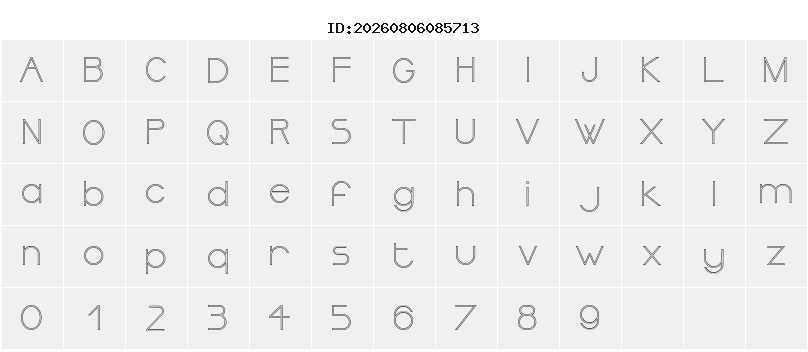
• Font Name: Ormont
• Font Style: Outline
• Full Font Name: OrmontOutline
• PostScript Name: OrmontOutline
About Ormont.otf
Ormont.otf is a modern, elegant sans-serif font designed for ultimate readability and visual harmony. Perfect for branding, headlines, web design, and print materials.